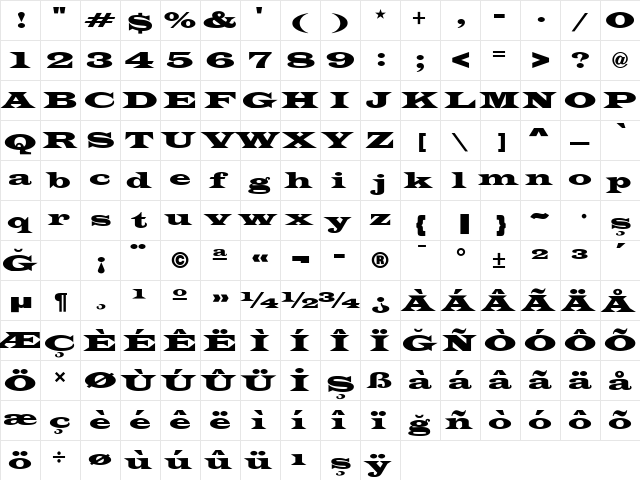
Latin-Wide Normal
Design Context for Latin-Wide Typeface
Latin-Wide offers clean, dependable letterforms without strong stylistic allegiance, making it a practical choice for designers who need flexibility.
Pro Tip: Pair Latin-Wide with a font of contrasting weight or personality to build a more expressive typographic hierarchy.